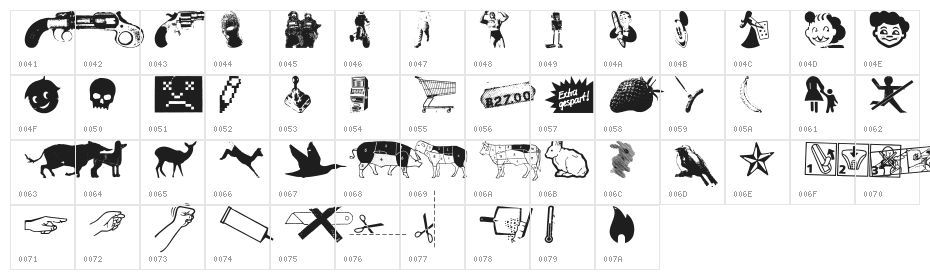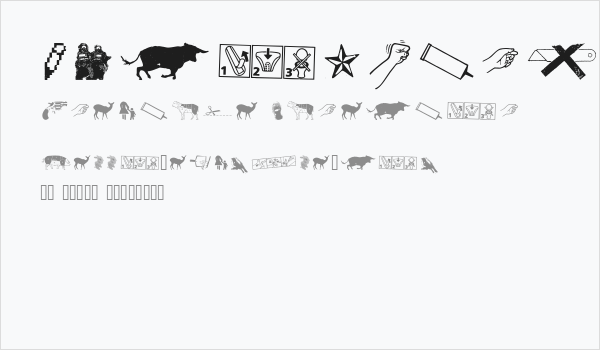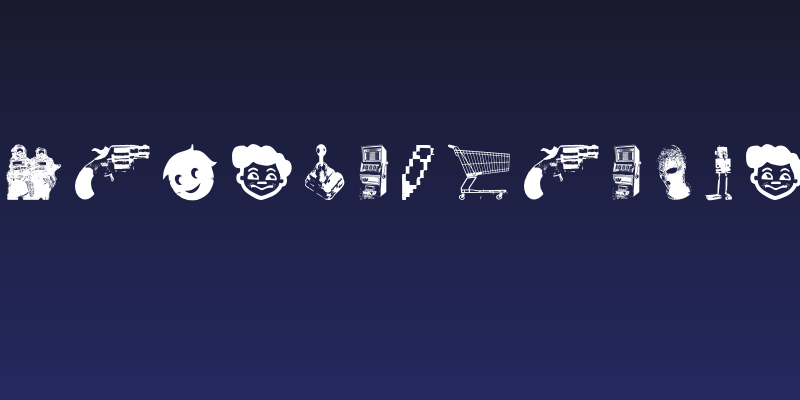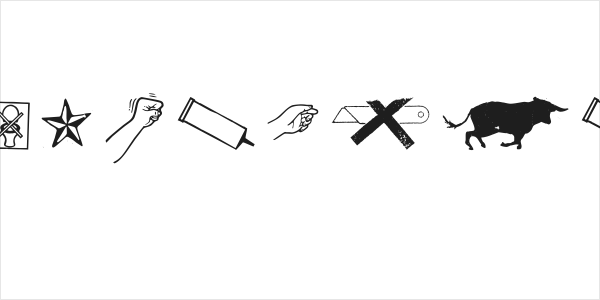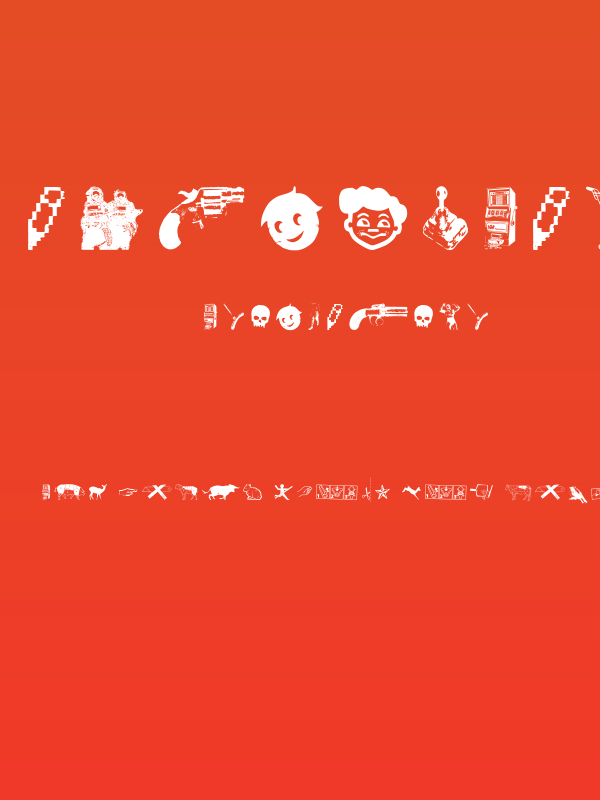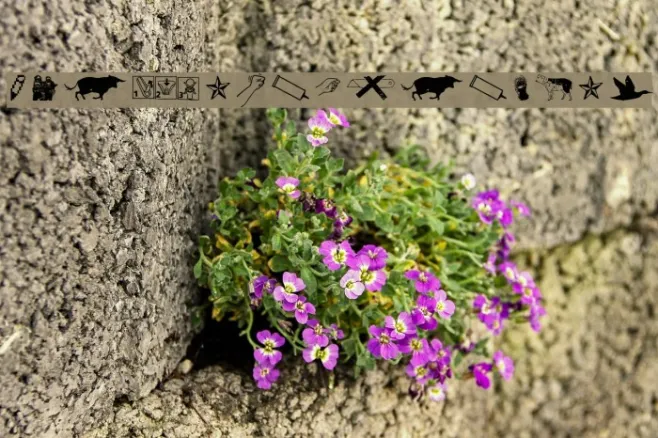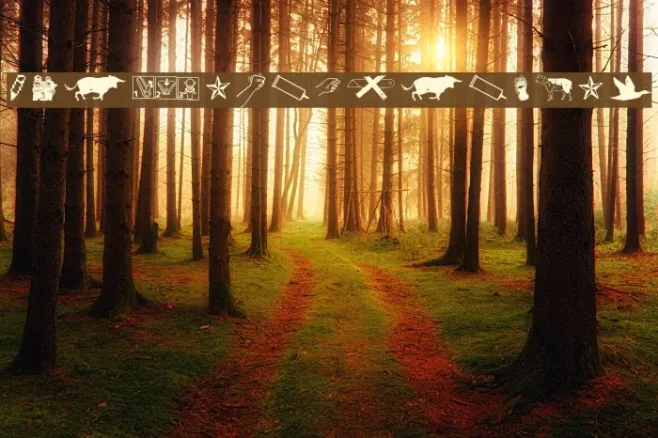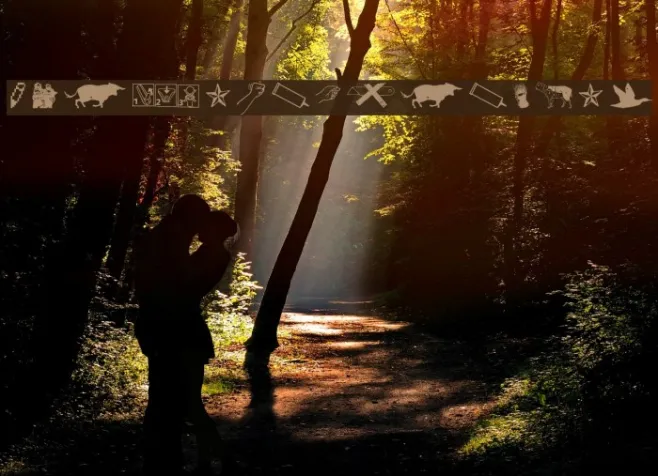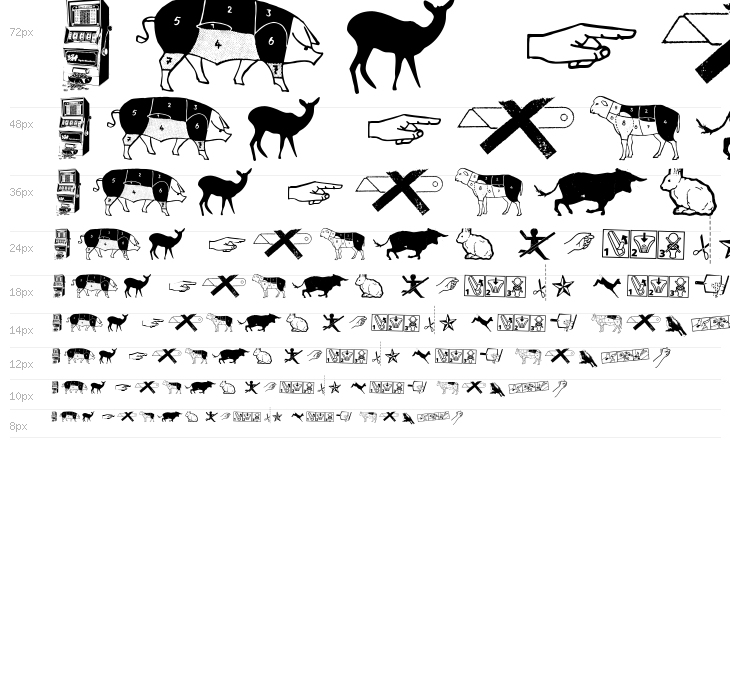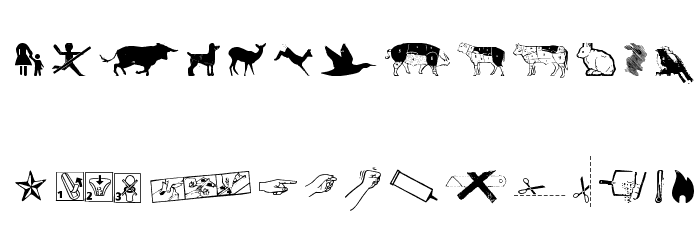
REconstructDing Font
REconstructDing Description
A highly decorative dingbat font consisting of various pictograms and icons, including guns, people, animals, objects, and abstract shapes, with a mix of solid black silhouettes and outlined forms. The characters are not traditional alphanumeric glyphs but rather unique illustrations, each representing a different object or scene.
| Overall Style | Decorative, Playful, Eclectic |
| Use Case | Icons, Decorative elements, Thematic graphics |
| Proposed Projects | Posters, flyers, infographics, educational materials, signage, creative art projects. |